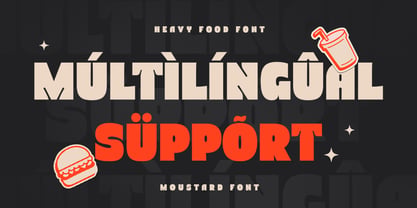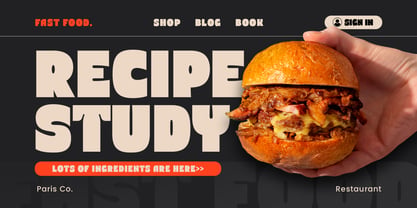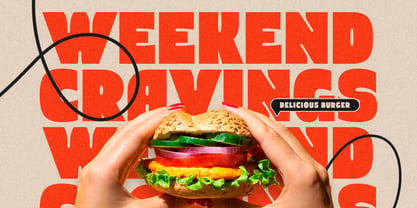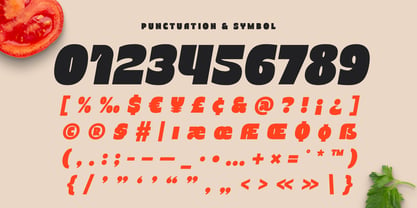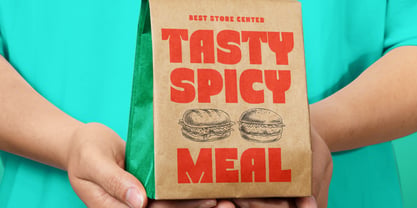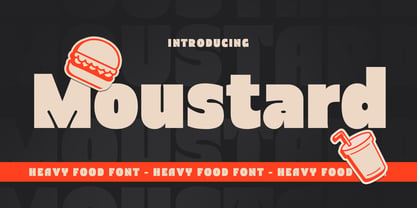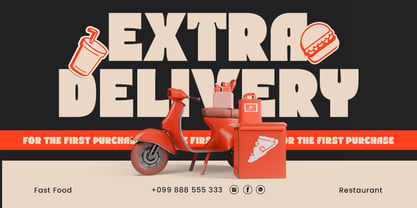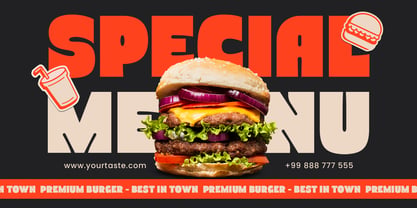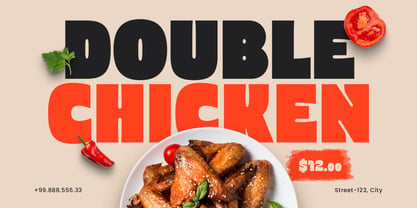
Moustard
por Sensatype Studio
La familia tipográfica Moustard fue diseñada por Zamroni Hamzah y publicada por Sensatype Studio. Moustard contiene 2 estilos y opciones de paquete familiar. Más información sobre esta familia
Moustard is a bold, heavy font designed to make your food-related headlines and designs stand out. Inspired by the robust and hearty nature of gourmet meals, Moustard delivers a powerful visual impact that’s perfect for menus, restaurant branding, and culinary designs. Whether you're designing a striking menu, creating a logo for a gourmet restaurant, or developing mouth-watering branding materials, Moustard adds a rich and bold touch to your projects.
The Story Behind Moustard:
Moustard was inspired by the visual and sensory richness of gourmet cuisine. Designed with a heavy, bold style, Moustard captures the essence of indulgence, satisfaction, and culinary artistry. It’s perfect for any project that needs to convey a sense of boldness and flavor. From upscale restaurants and cozy cafes to gourmet food trucks and culinary festivals, Moustard is the ideal font for all things food-related.
Moustard Font Features:
• Bold Design: Perfect for making impactful headlines and standout food branding.
• Versatile Usage: Ideal for restaurant logos, menus, packaging, and culinary designs.
• High Legibility: Ensures your text is clear and easy to read.
• Gourmet Aesthetic: Adds a rich and indulgent feel to your food-related projects.
• Inspirational Previews: Includes sample designs to showcase the font's potential and ignite your creativity.
Elevate your culinary designs with Moustard and add a bold, flavorful touch to your work.